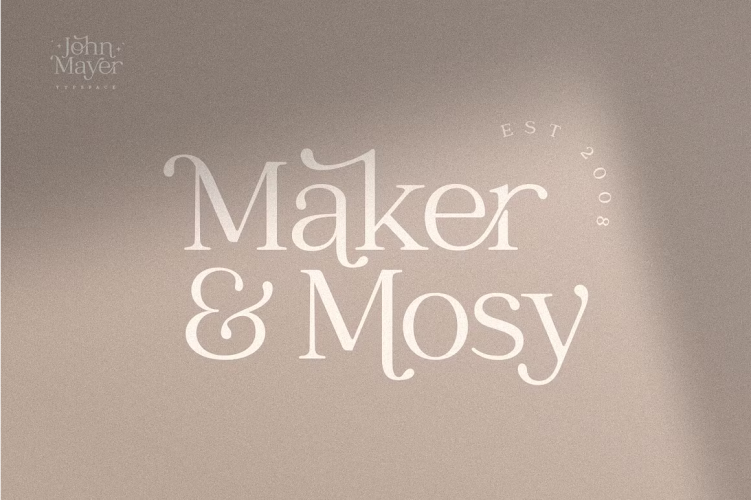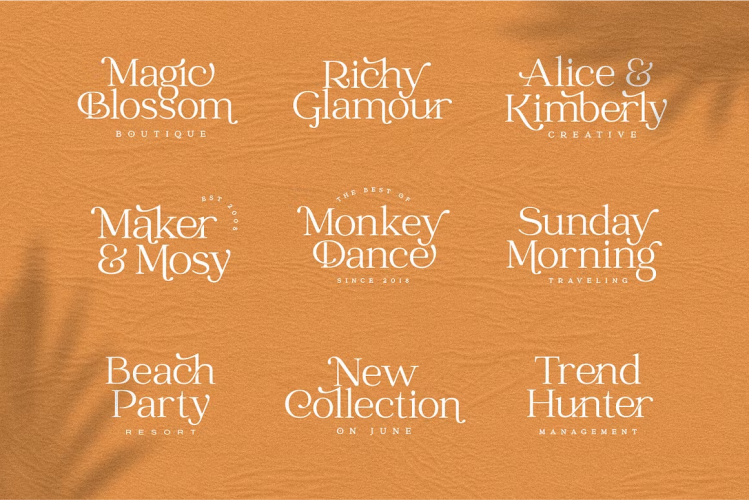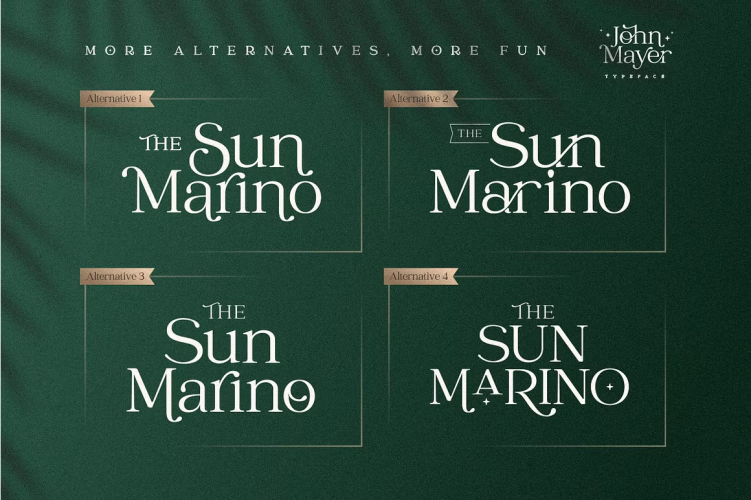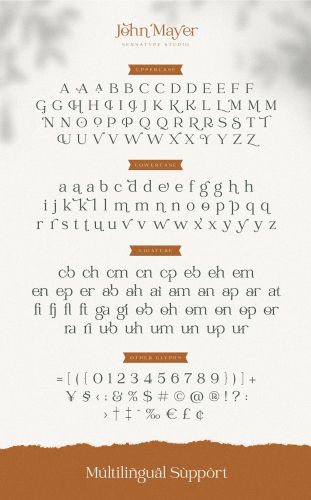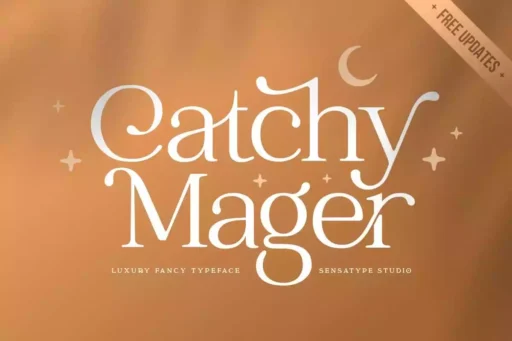
Catchy Mager Font
Catchy Mager is a luxury fancy serif font by Sensatype. With the ongoing trends in the design world people would love to see something different. They want their logo to stand out and look unique, so Sensatype decided to design a typeface to meet the needs of business owners who need creativity for their business. This font is suitable for both logo and branding. Catchy Mager features have some ligatures to make it look more unique.
ab ah am an ar ap at cb ch cm cn cr eb eh em en ep er ub uh um un up ur fl fi ff ft ga gi it ai
It also includes fancy style on almost every uppercase and lowercase alphabet glyph.
Where Catchy Mager Font works best
Catchy Mager Font gives long-form text a classic, trustworthy rhythm — ideal for magazine spreads, annual reports and book interiors.
Pair Catchy Mager Font with generous letter-spacing for wordmarks in fashion, hospitality, wine and jewellery branding.
Use Catchy Mager Font for slide titles in Keynote, PowerPoint or Google Slides to add authority without looking dated.
What is Catchy Mager Font good for?